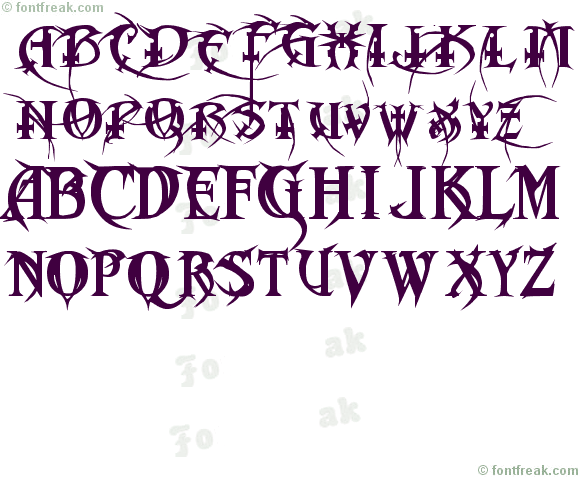
Metal Macabre
Metal Macabre is a striking display font designed by Bolt Cutter Design, falling under the category of decorative typefaces. This unique font embodies a gothic aesthetic, characterized by sharp angles and an edgy, bold stroke weight. The high contrast between the thick and thin lines gives it a dramatic flair, while the intricate decorative elements, including pointed serifs and elongated features, enhance its macabre theme. The spacing is tight, creating a cohesive look that draws attention, making it a perfect choice for designs that demand impact.
The Metal Macabre font is particularly well-suited for a variety of creative applications. It shines in movie posters, especially those within the horror or fantasy genres, where its dramatic style can capture the essence of thrilling narratives. Additionally, this font can elevate band merchandise, providing a distinctive logo or branding element that resonates with metal music fans. It also works effectively for themed event invitations, such as Halloween parties or gothic weddings, where its unique character can set the tone. Furthermore, small business owners in niche markets, such as tattoo parlors or alternative fashion boutiques, will find this font advantageous for signage and promotional materials.
The target audience for Metal Macabre includes graphic designers seeking to create bold visuals, small business owners looking to establish a memorable brand identity, and content creators aiming to make a statement with their digital or print projects.